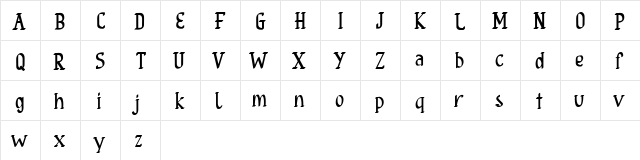
Olios FREE Regular
Design Context for Olios FREE Typeface
Olios FREE takes a measured approach to typography — its balanced proportions and neutral character make it a reliable workhorse for both digital and print work.